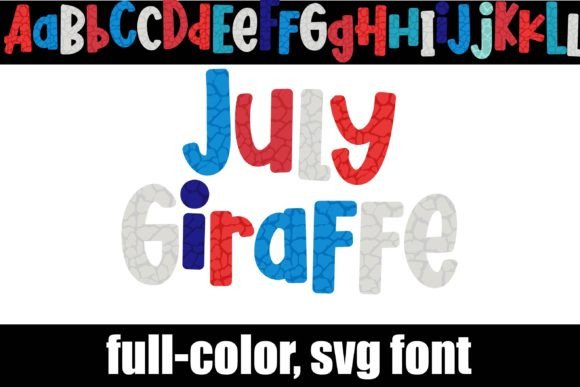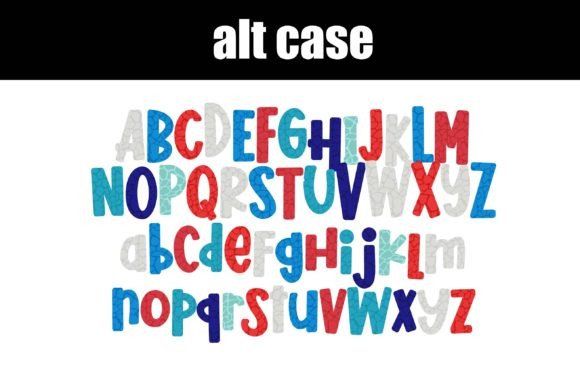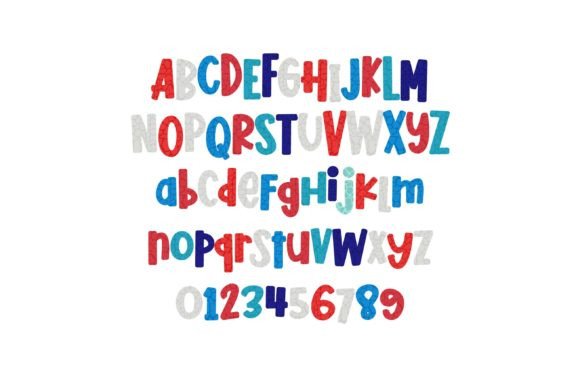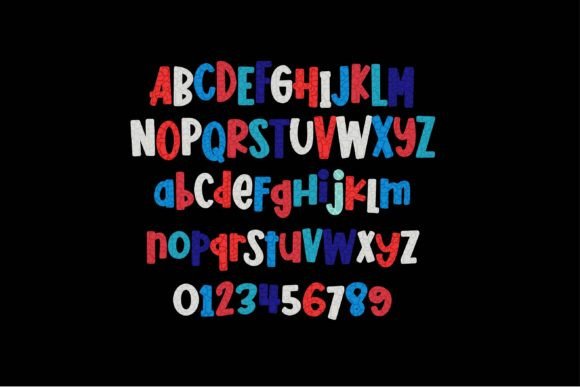
July Giraffe Font
About the July Giraffe Font
Make a bold statement with July Giraffe Font, a powerful and memorable font. This full-color font features a wild, giraffe print in a patriotic color palette. There is an alt case w/ additional colors you can access through your system or Silhouette’s glyph map. This font works best for titles, displays, posters and more. Please note color fonts will show as black in non compatible programs. This font type is compatible with Silhouette Studio.